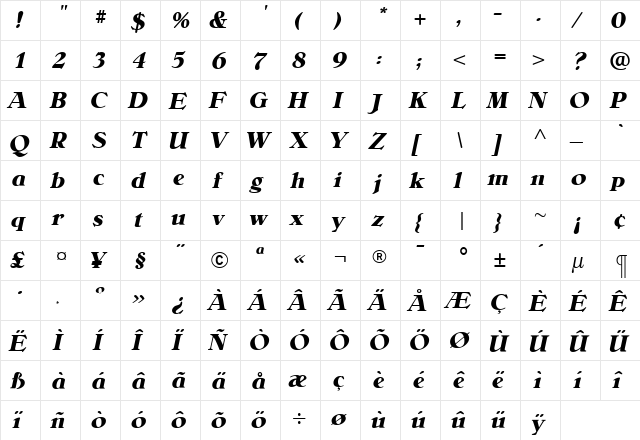
BelliniBoldItalic Regular Font Preview
Design Context for BelliniBoldItalic Typeface
BelliniBoldItalic takes a measured approach to typography — its balanced proportions and neutral character make it a reliable workhorse for both digital and print work. The dynamic lean of this cut emphasises speed and emphasis in any layout. The heavy weight commands attention and anchors typographic hierarchies.